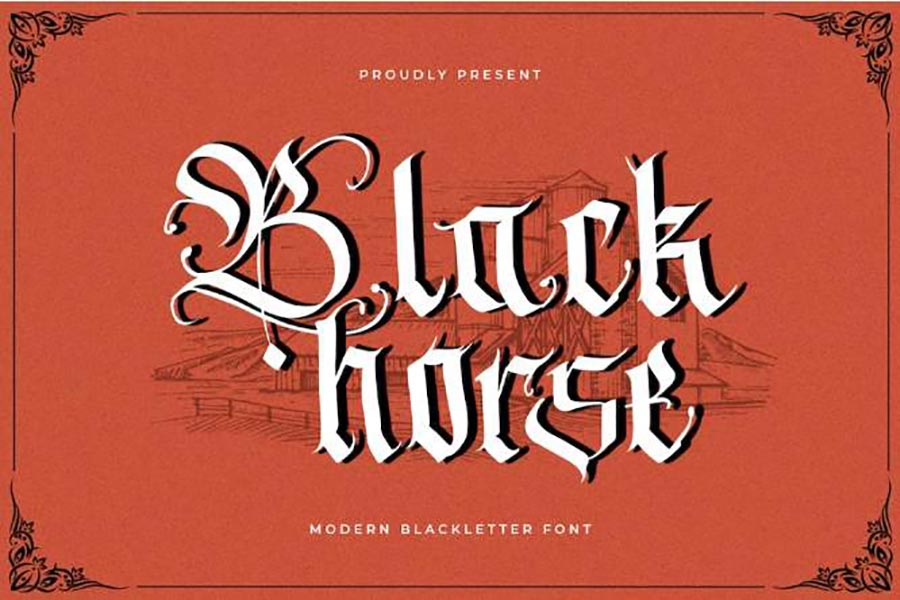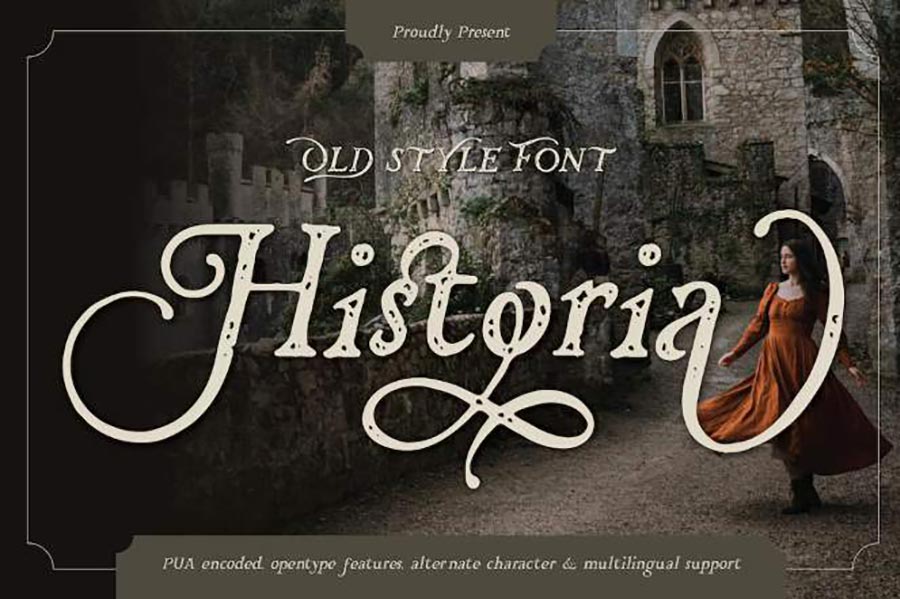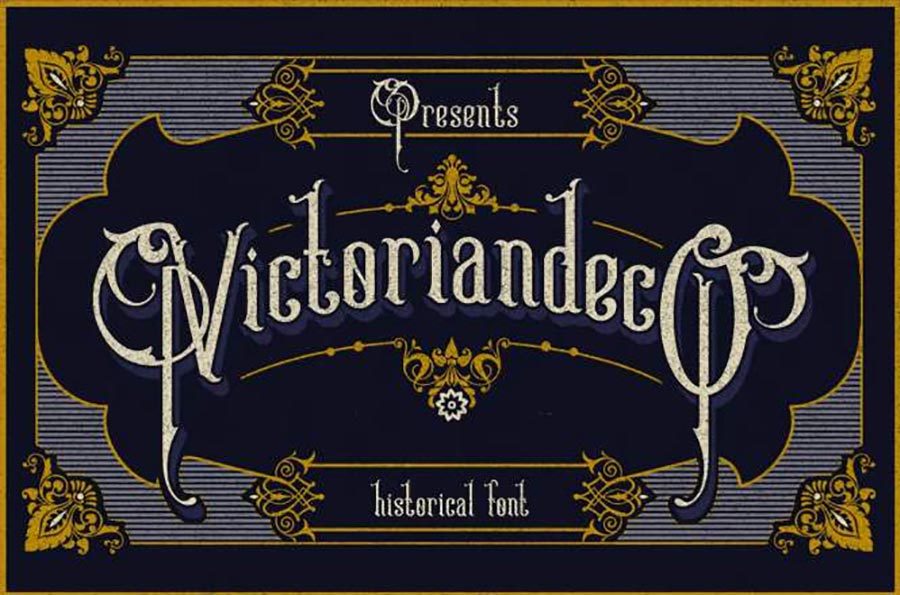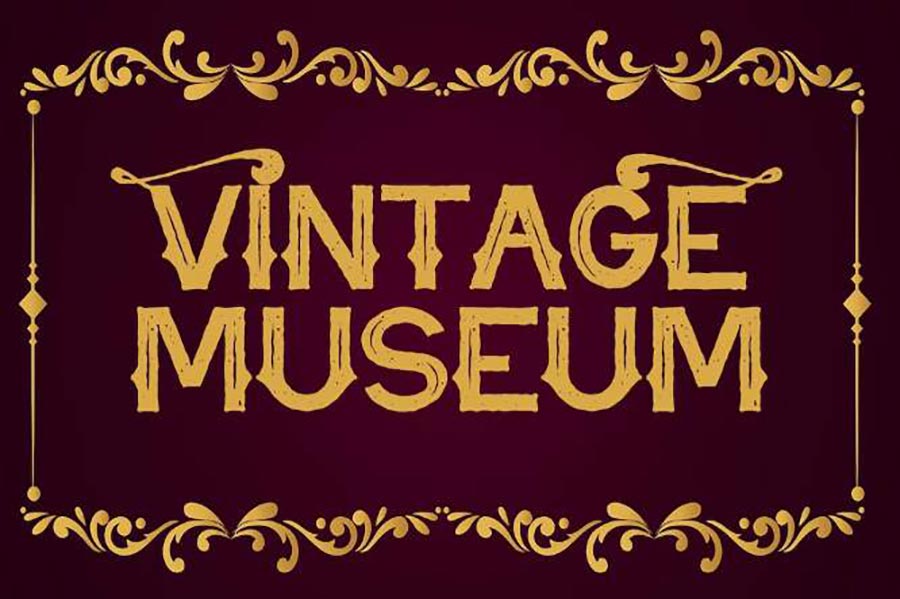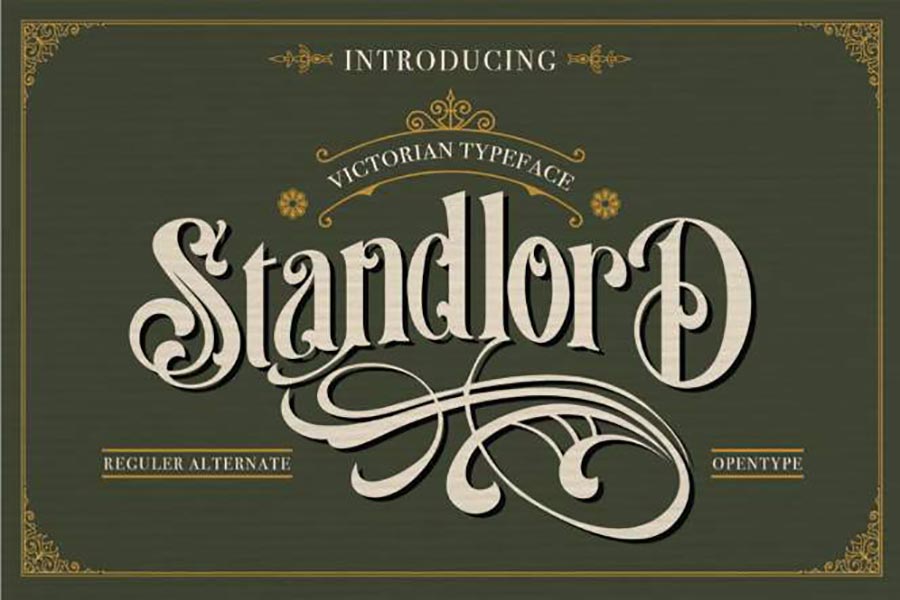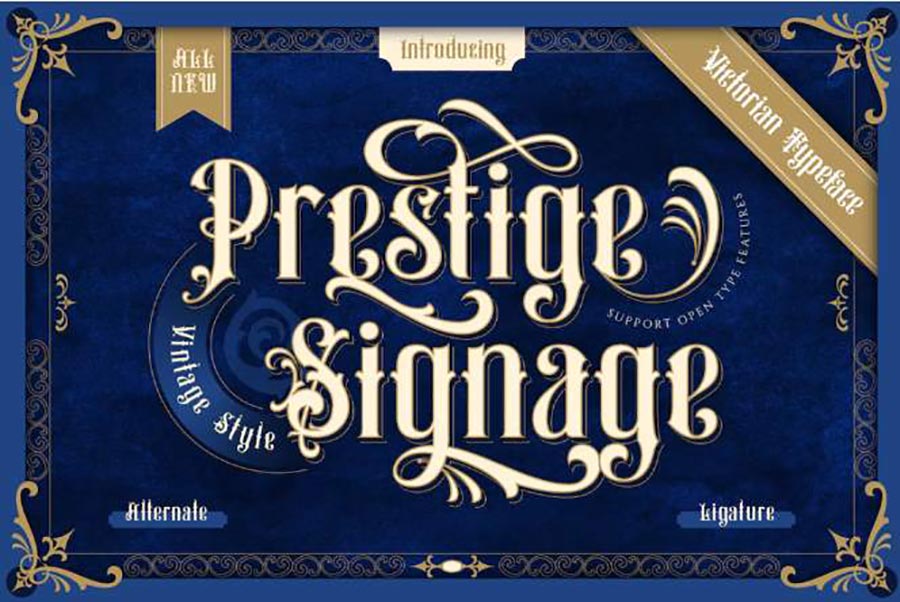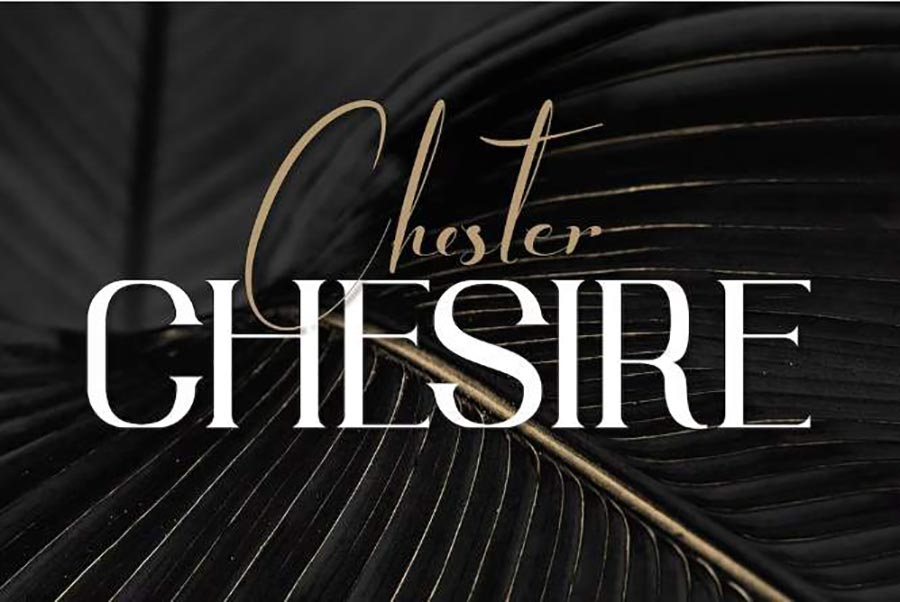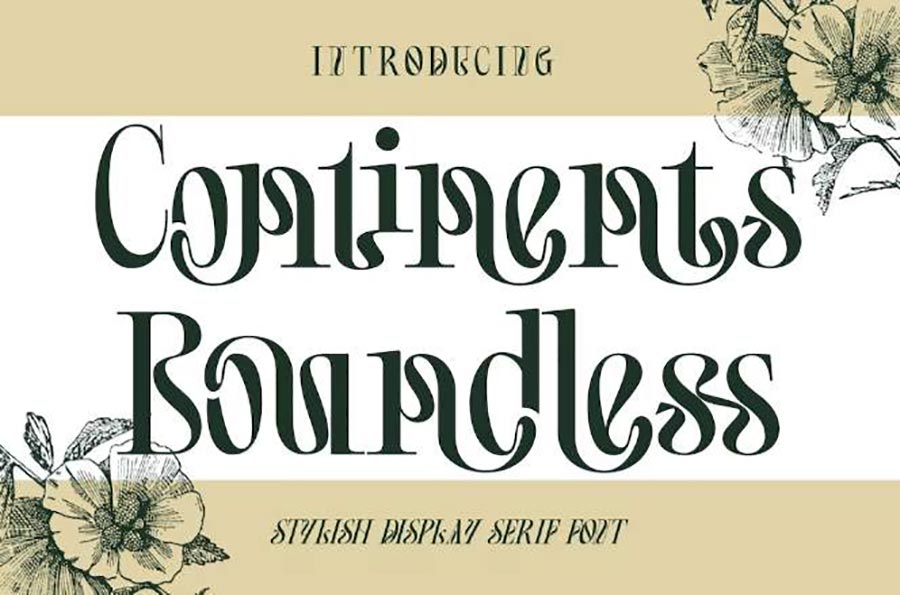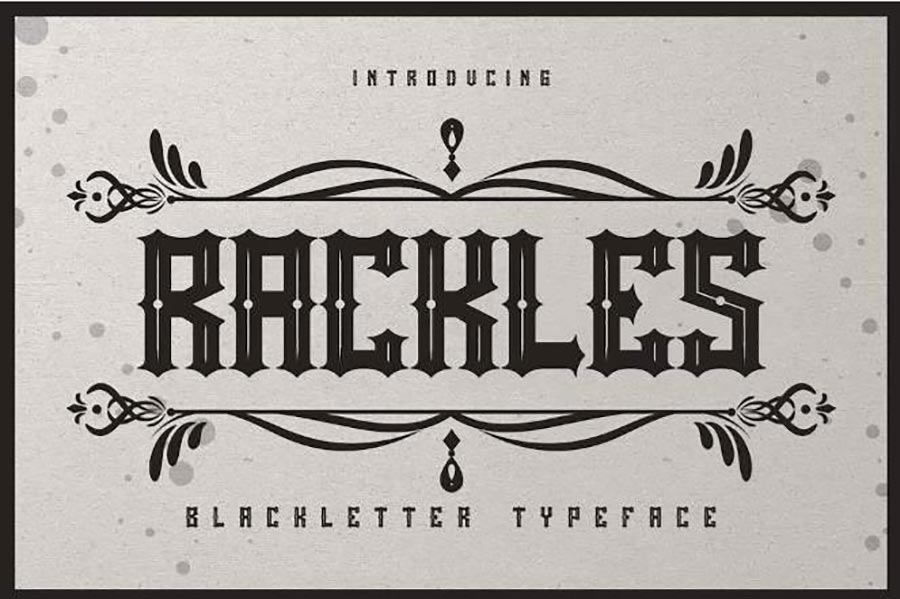
Vintage fonts are an important element in bringing a nostalgic, unique beauty to designs. The set of 10+ beautiful fonts that Sadesign.vn shares for free not only helps save costs but also brings sophistication and professionalism to each creative product.
The Unique Beauty Of Vintage Fonts
1. Full of Nostalgia
Vintage fonts recall the golden age of design, with a classic, attractive style. The details are meticulously cared for, bringing a feeling of both familiarity and novelty.
2. Diverse Styles and Applications
The Vintage font family from Sadesign.vn includes many styles such as soft script, elegant serif, or retro sans-serif. This diversity makes it easy to apply in projects such as posters, logos, invitations or brand design.
3. Add Art to Design
Using Vintage fonts not only creates highlights but also increases artistic value, expressing the unique aesthetic taste of the designer.
Applications of Vintage Fonts in Design
1. Create a Brand Logo
Vintage fonts are the perfect choice for brands that want to create a unique image, reminiscent of traditional values ​​but still retain a modern feel.
2. Event Poster Design
Posters using Vintage fonts give an impressive and artistic feel. Events such as fairs, exhibitions, or concerts all stand out with this style.
3. Make Invitation Cards or Restaurant Menus
Classic invitations or retro restaurant menus are enhanced with beautiful vintage fonts.
4. Social Media Content Decoration
Vintage fonts are also very suitable when designing social media posts, bringing novelty and attracting attention from viewers.
The set of 10+ Vintage fonts from Sadesign.vn is the perfect choice for designers looking for uniqueness and difference. Not only is it free, this font set also brings endless creative inspiration, helping to improve the quality and artistic value of each of your projects.